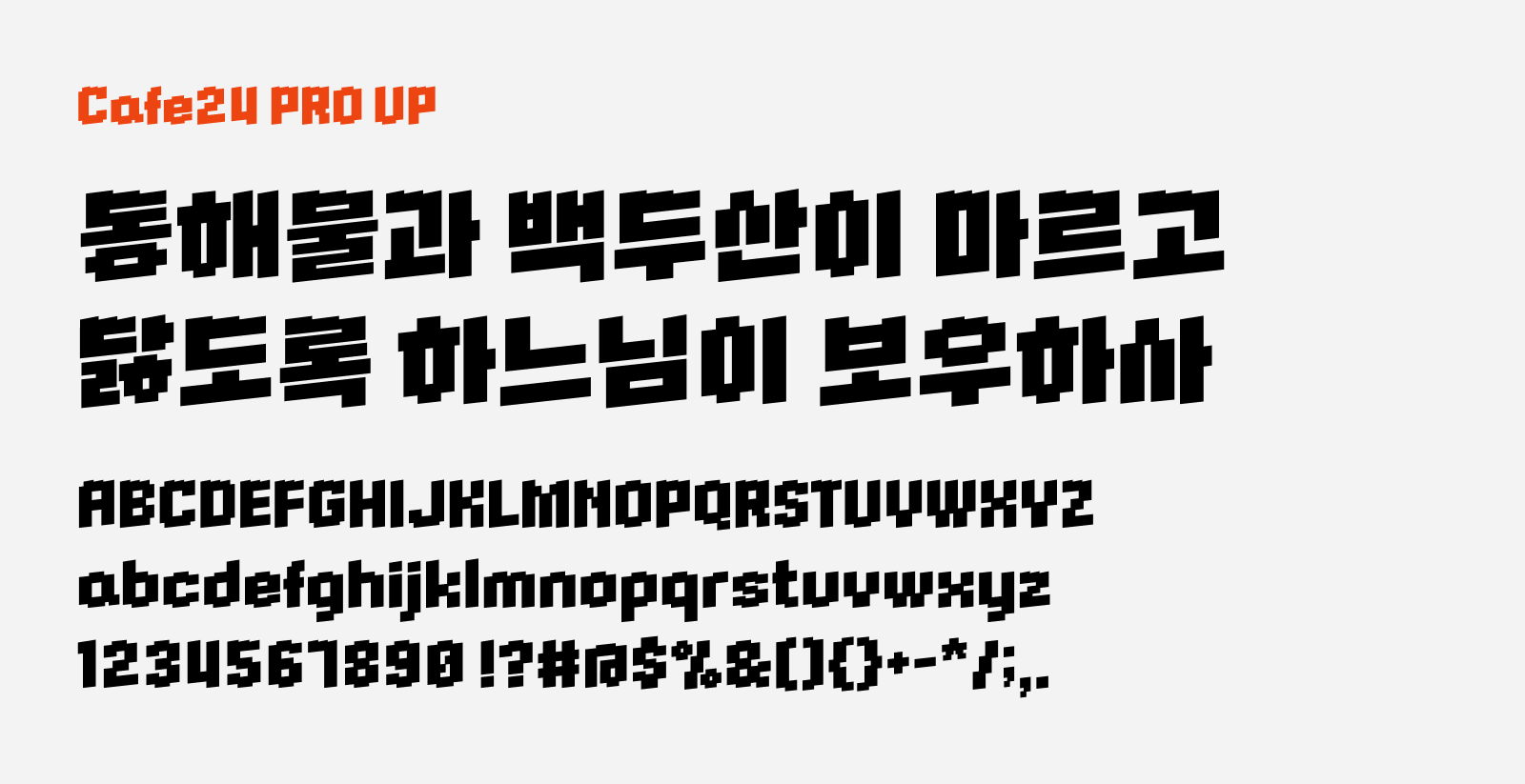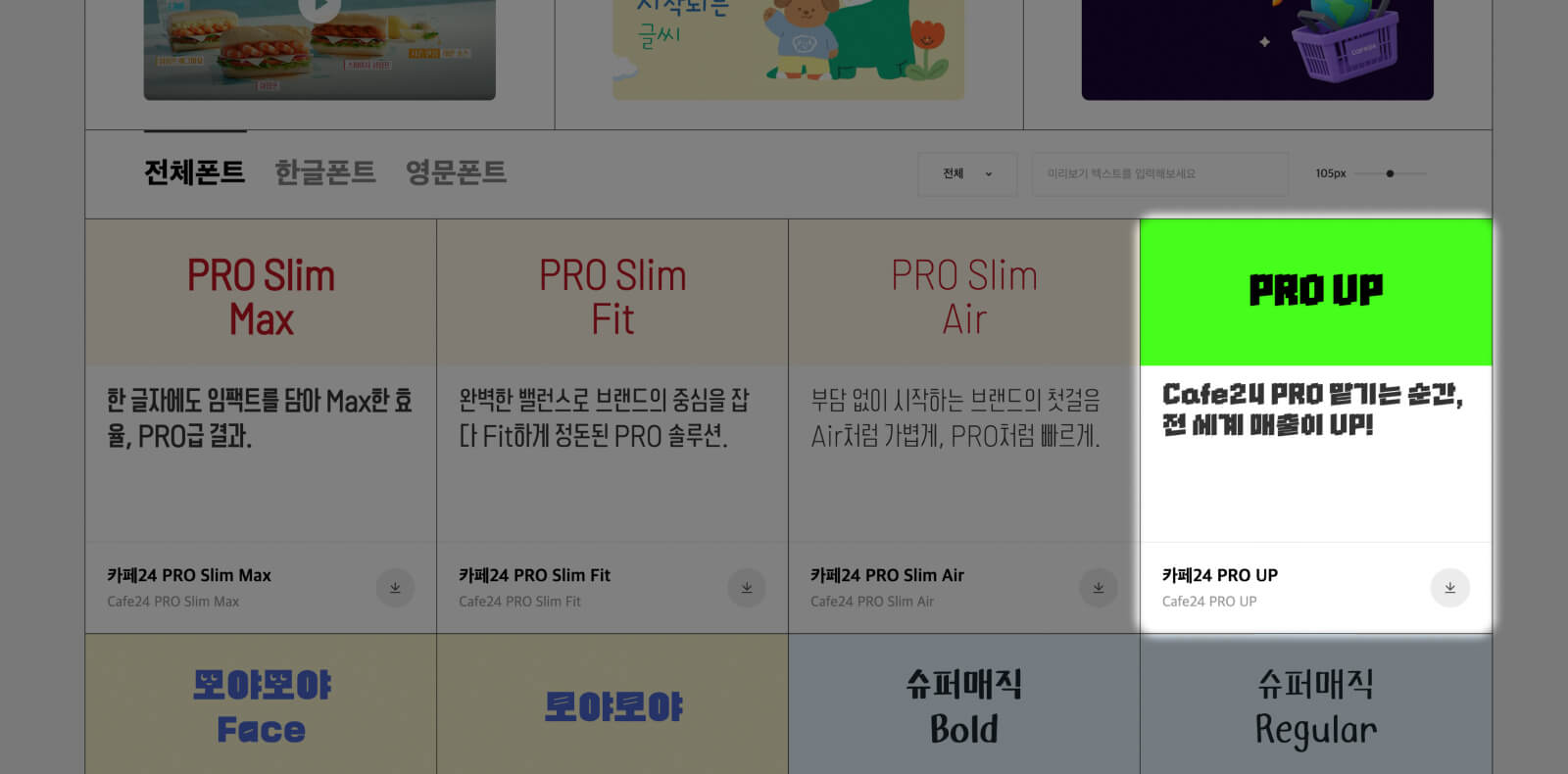
Cafe24 PRO UP
Cafe24 PRO UP (카페24 PRO UP) is a cool, bitmap-inspired Korean font that is free to download. It was constructed like a bold bitmap font but with slight up slant. The interesting design detail is that, although the characters are slanting up, the caps height, or the top part of the characters are kept flat, but with the teeth-like design like a serrated knife or bread knife. This font gives a very cool digital vibe, and the up slant increases the dynamic and sense of movement of the font.
Cafe24 PRO UP supports all the Hangeul characters and latin scripts, hence it can be used just for the latin characters for English language. I can imagine this font could be a terrific candidate for games, subculture, art exhibition designs, to express that cool and unique vibe. The best part is you can download and use this font for any personal and commercial projects, as this font is released under SIL Open Font License.